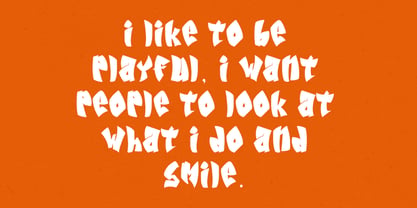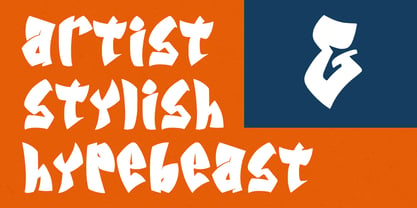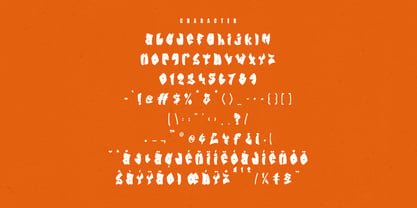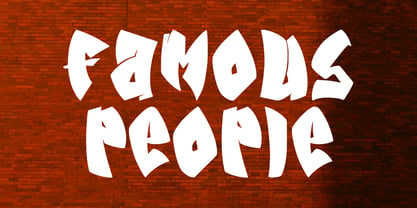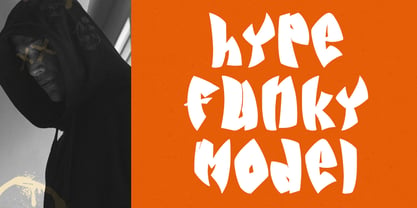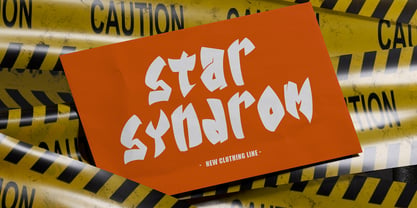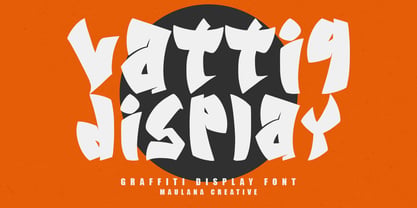
MC Vattiq
by Maulana Creative
The MC Vattiq Font Family was designed by Gilang Maulana and published by Maulana Creative. MC Vattiq contains 1 styles. More about this family
Vattiq is a graffiti japanese display handwritten font. With bold stroke, fun character to give you an extra creative work. Vattiq font support multilingual more than 100+ language. This font is good for logo design, Social media, Movie Titles, Books Titles, a short text even a long text letter and good for your secondary text font with sans or serif. Make a stunning work with Vattiq font.
Designers: Gilang Maulana
Foundry: Maulana Creative